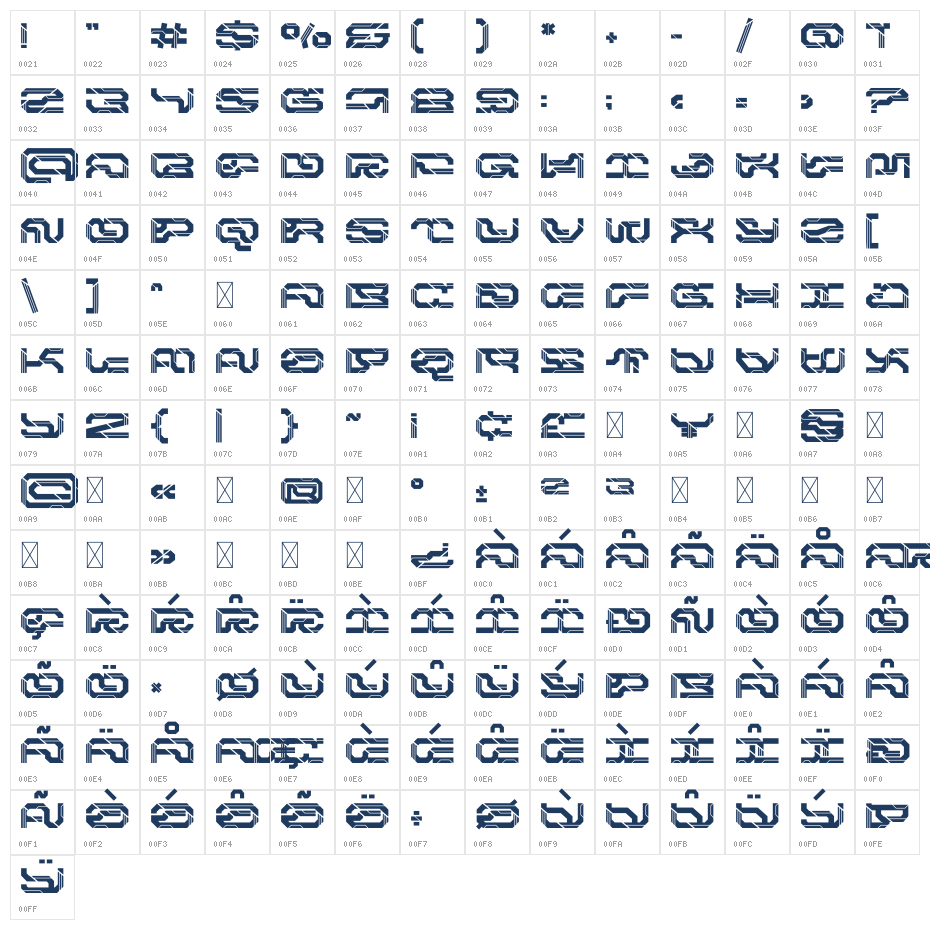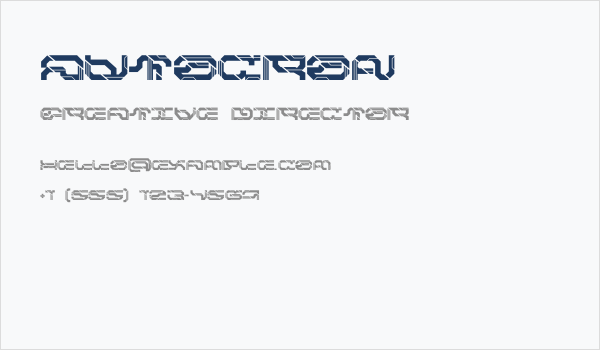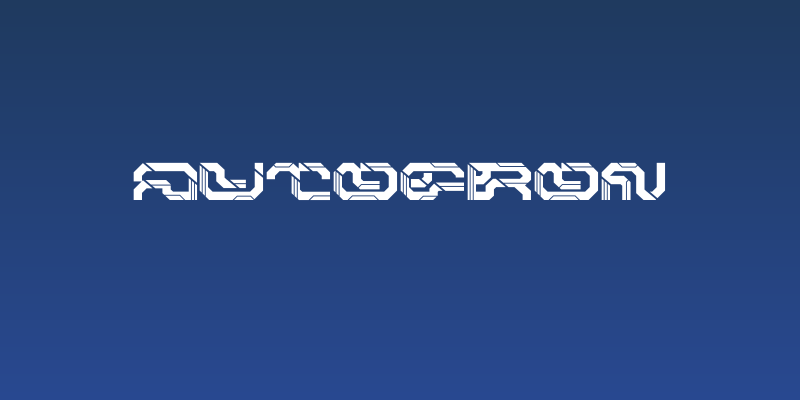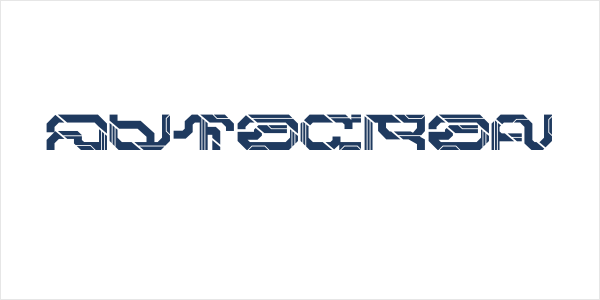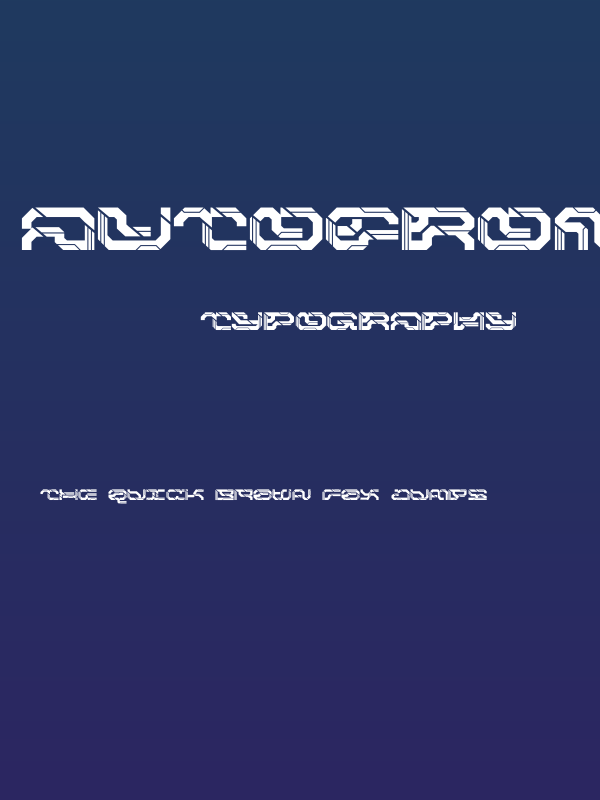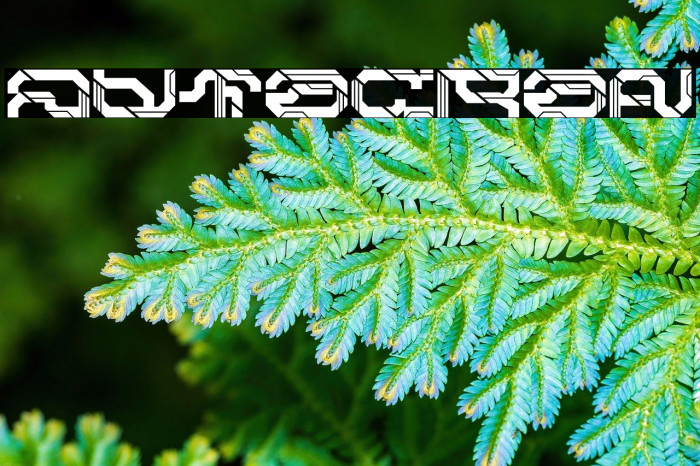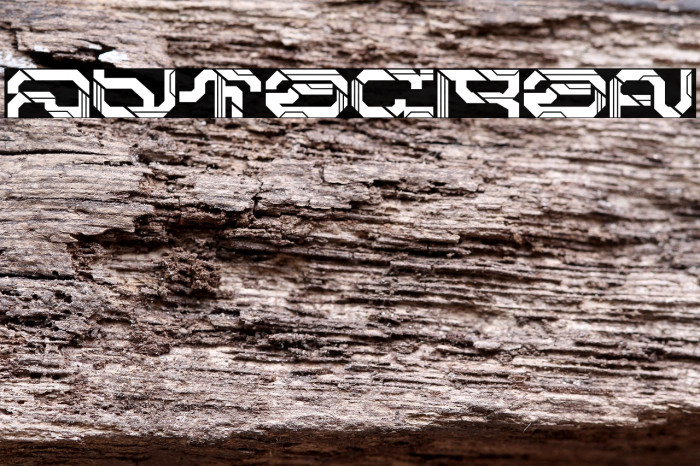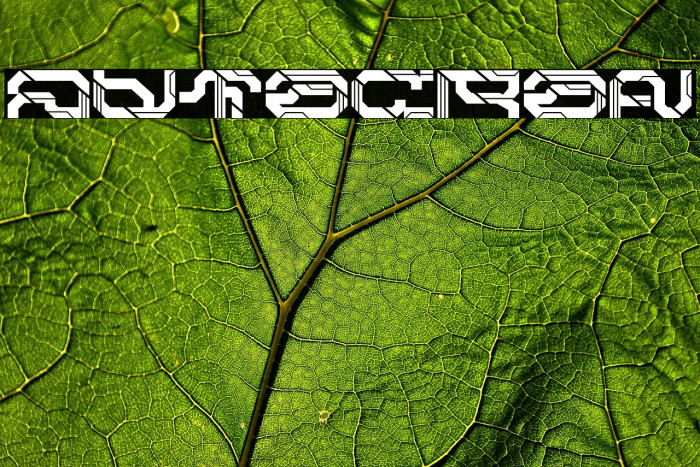
Autocron Font
Autocron Description
A futuristic, geometric, and stylized font with a digital or cyber-inspired appearance, featuring sharp angles and layered effects.
| Overall Style | Futuristic, Digital, Tech-inspired |
| Use Case | Headlines, Logos, Titles, Digital interfaces |